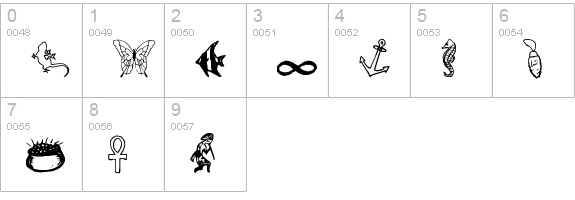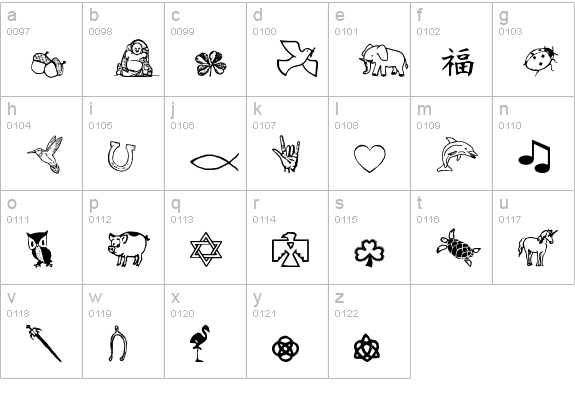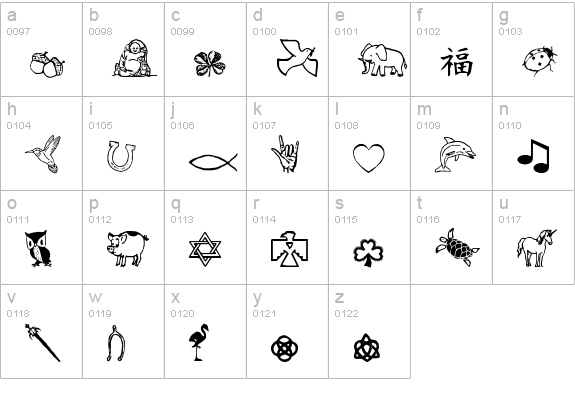
CharmingSymbols Font Details
Introducing CharmingSymbols, a delightful and elegant font that is sure to add a touch of whimsy to your design projects. This unique font features a collection of charming symbols and icons that will bring a playful and enchanting vibe to any creative piece. Whether you're working on invitations, greeting cards, or social media graphics, CharmingSymbols is the perfect choice to make your designs stand out. What's even better is that CharmingSymbols is completely free to download at FontsMarket.com! Yes, you read that right - this beautiful font is available for free, giving you access to a treasure trove of enchanting symbols without breaking the bank. So go ahead and download CharmingSymbols today to add a touch of magic to your next project.